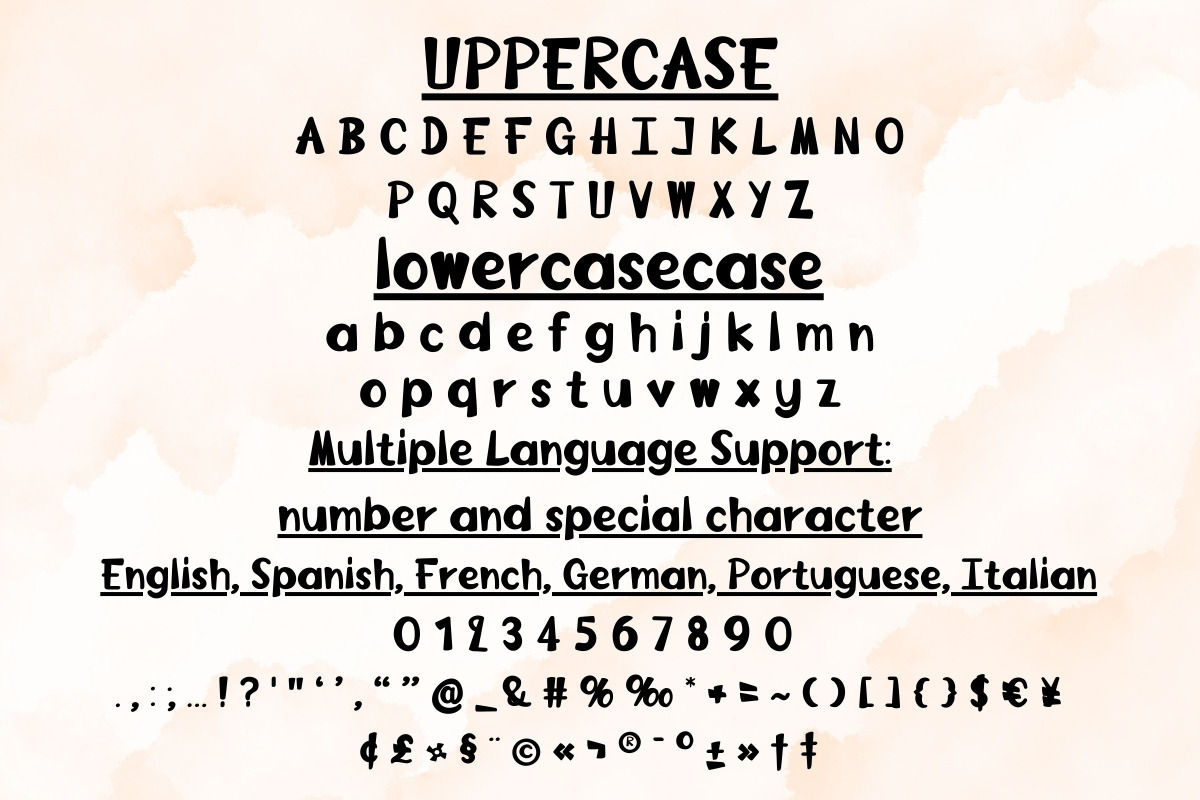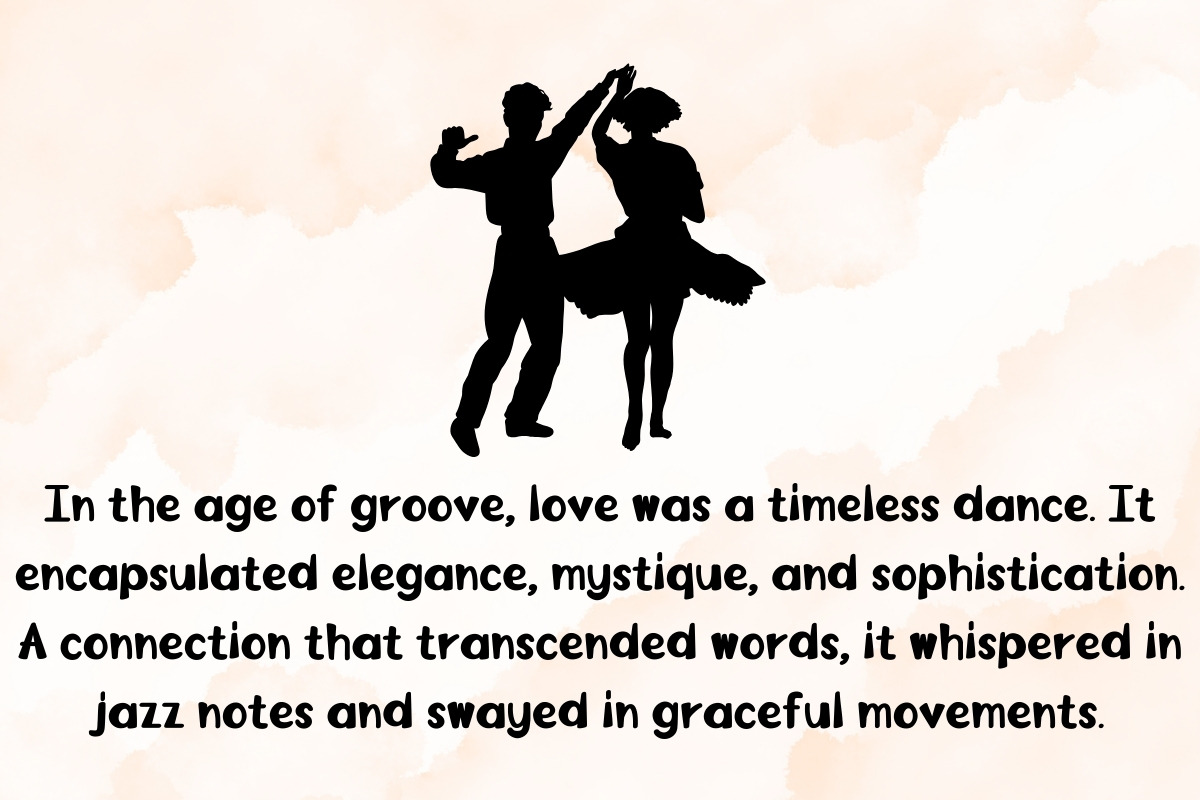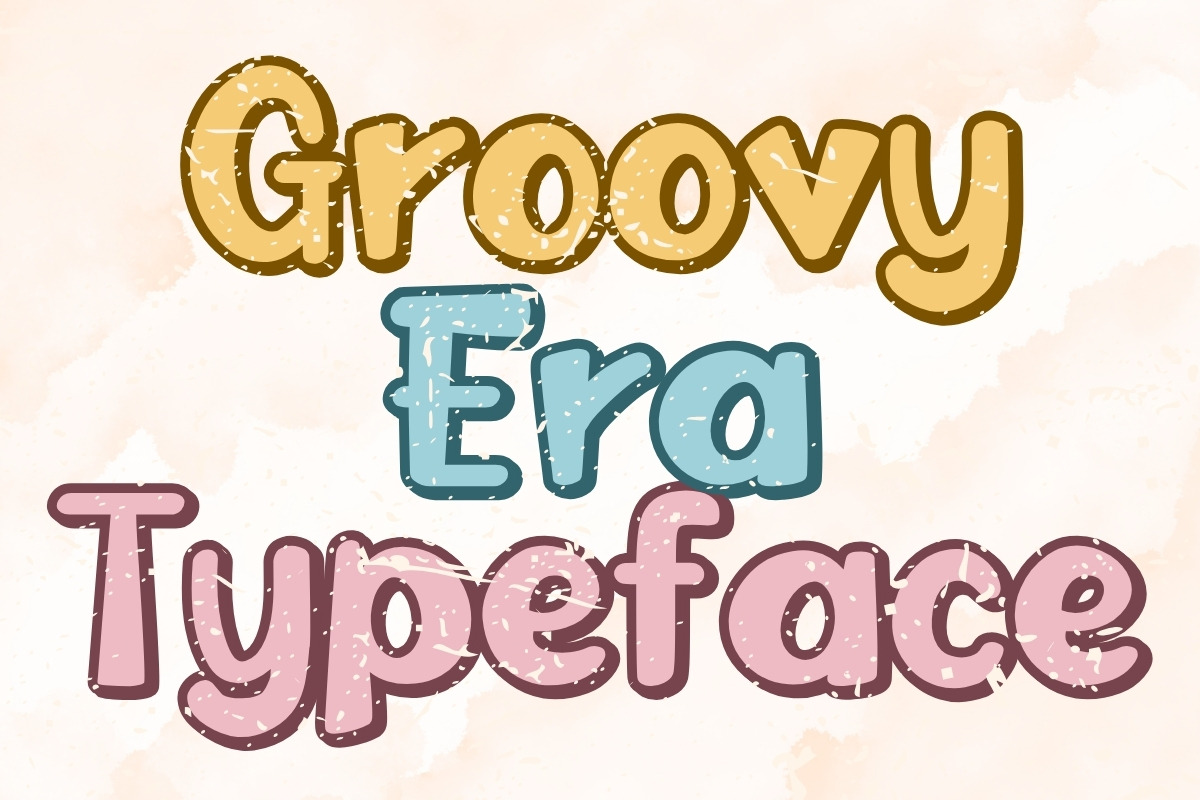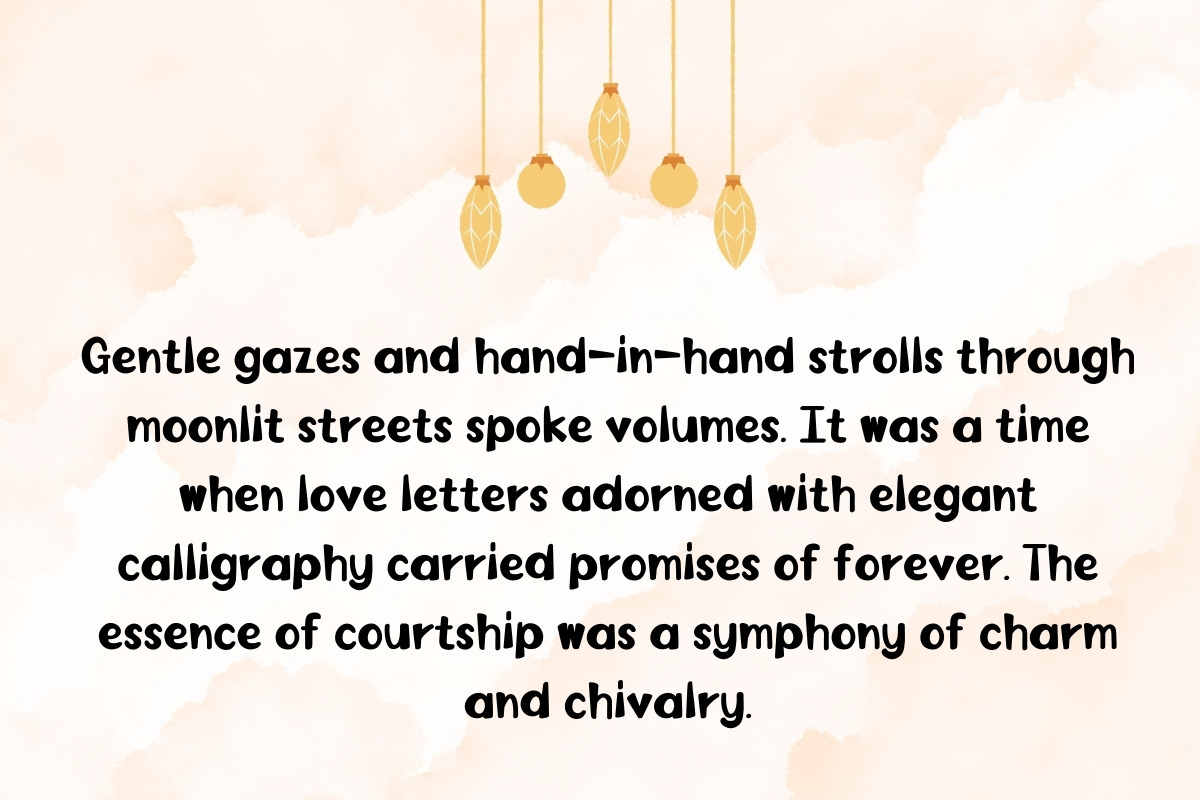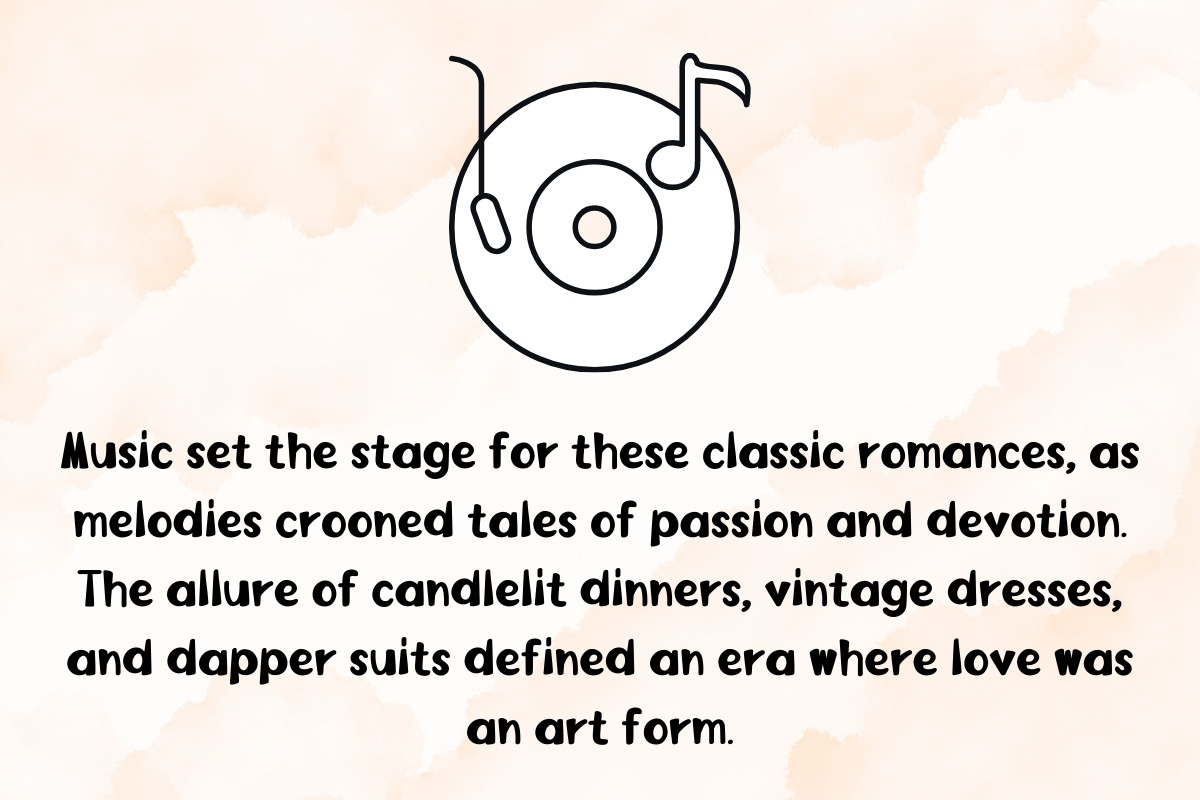
Groovy Era Typeface - Handwritten
As we look back on the classic elegance of Groovy Love, we are reminded that some things never go out of style – the timelessness of true love, wrapped in the allure of an unforgettable era.